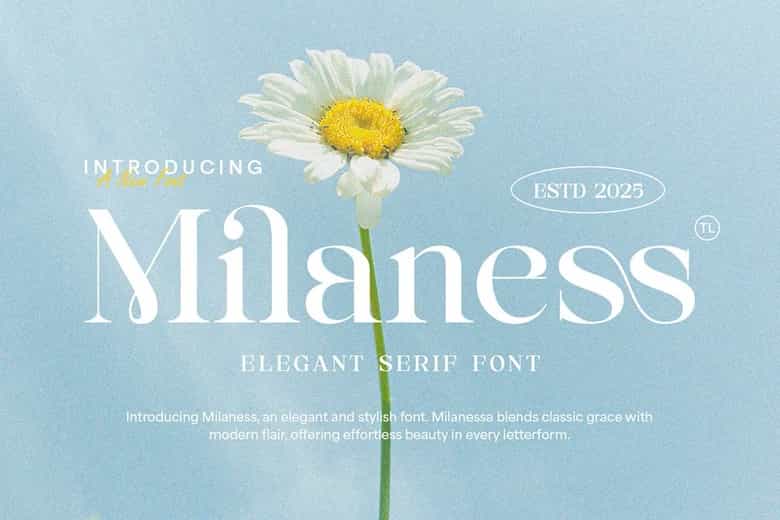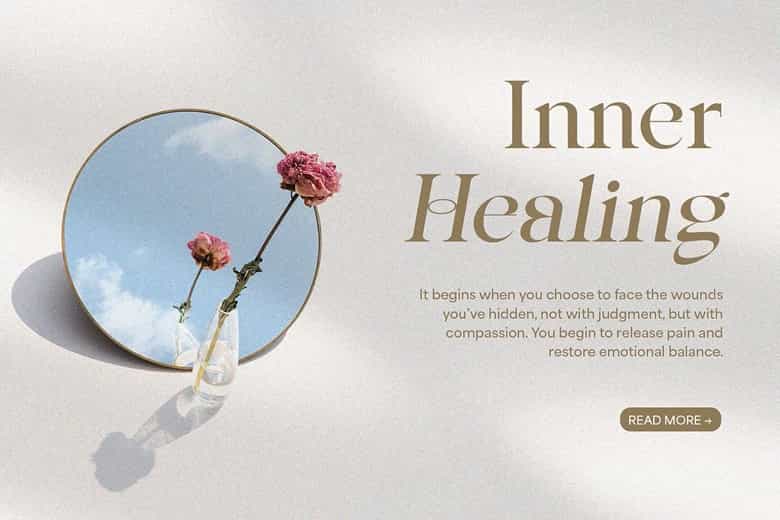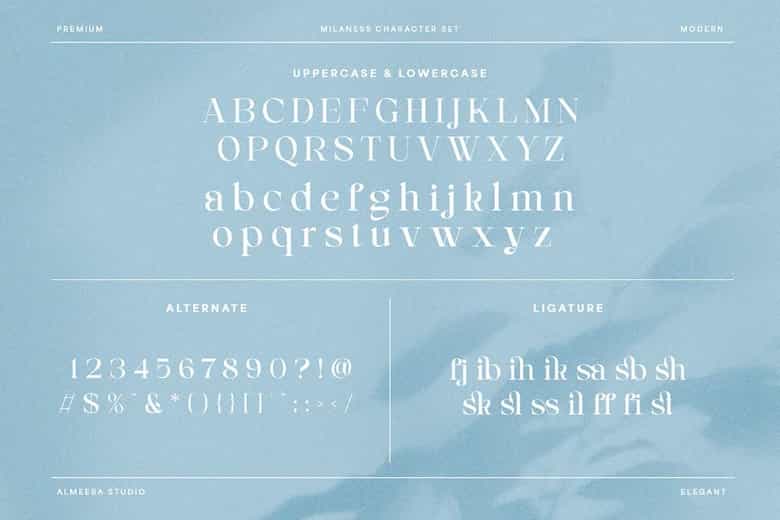
Milaness is an enchanting elegant serif typeface that elegantly combines the old school grace with graceful new style. Ideal branding, editorial designs, wedding invitations, as well as luxury packaging, Milaness exudes unmatched elegance on any work. Its exquisitely designed letterforms are stylishly ligatured with a unique flow, which makes them smoothly beautiful and remarkably readable.